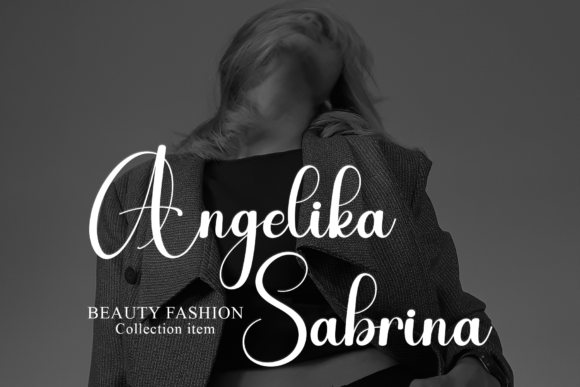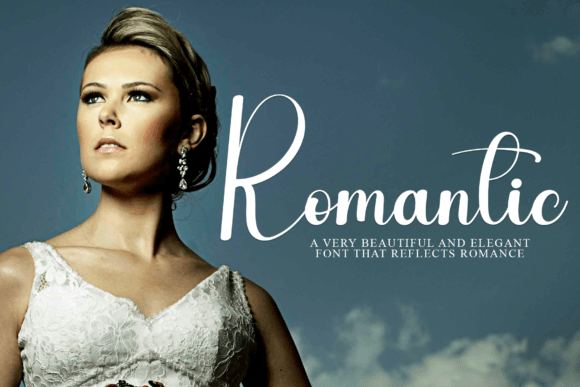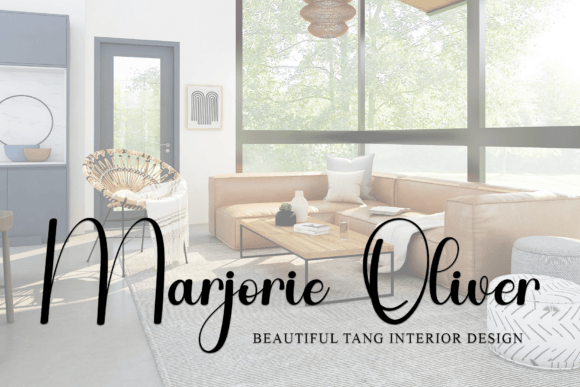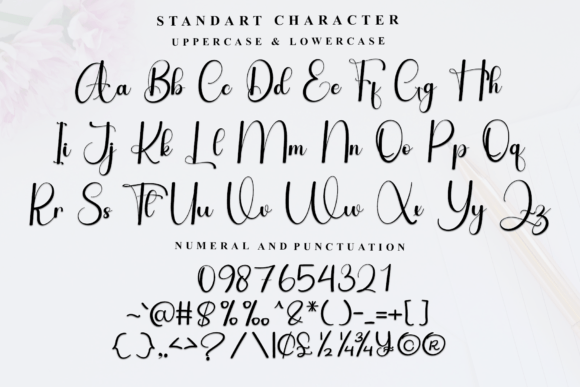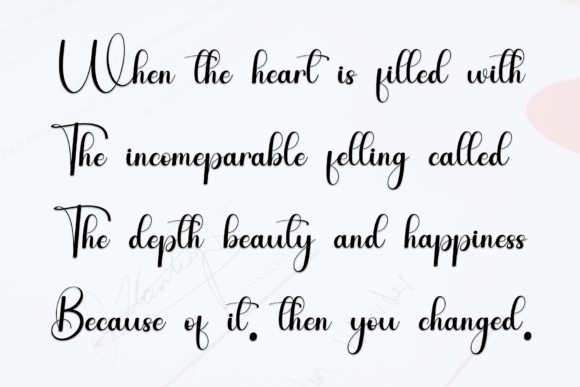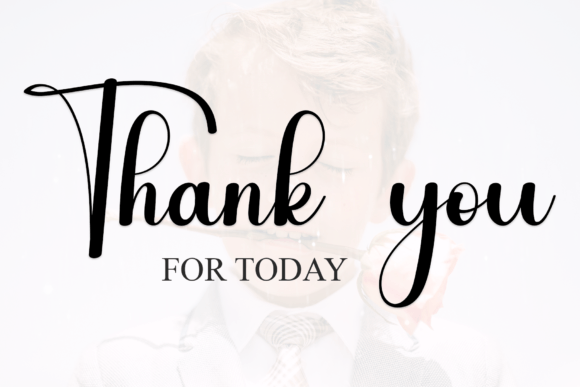
Unlock the Art of Elegant Design with Amazing Calligraphy Font
You know that moment when you’re brainstorming a new project, and suddenly, the perfect font pops into your mind? For designers, this moment is pure magic. It’s the spark that ignites creativity and brings ideas to life. And, for many, that spark comes in the form of the Amazing Calligraphy Font.
This exquisite handwritten font is designed to add a touch of elegance and sophistication to any design. With its delicate, flowing characters and beautiful balance, Amazing Calligraphy Font is the perfect companion for any creative project. Whether you’re crafting a wedding invitation, a logo, or a piece of art, this font will help you achieve a level of refinement and style that’s hard to match.
As a PUA-coded font, Amazing Calligraphy Font offers unparalleled flexibility and ease of use. With access to all the amazing glyphs and ligatures at your fingertips, you’ll be able to create truly unique and captivating designs that leave a lasting impression.
Amazing Calligraphy Font Key Features
- Unique Characteristics: Hand-drawn calligraphy style with subtle brushstrokes, elegant flourishes, and precise letter spacing, creating a sophisticated and luxurious feel.
- Support for Special Characters: Includes a wide range of special characters, including ligatures, swashes, and ornaments, adding an extra layer of creativity and expressiveness.
Designer Review: Amazing Calligraphy Font
Overall, I’d say the Amazing Calligraphy Font is a solid addition to any design project. ✨ It’s got a beautiful, elegant feel that’s perfect for invitations, certificates, or any other application where you want to add a touch of sophistication.
One of the things that really stands out about this font is its versatility. ✨ It comes in a range of styles, from formal to playful, so you can easily find the right look to match your project. The font is also highly customizable, with options for color, size, and spacing, which makes it a great choice for designers who like to get creative.
Of course, no font is perfect, and the Amazing Calligraphy Font has a few limitations. ⚠️ For one thing, it’s not as flexible as some other fonts, which can make it tricky to use in certain situations. Additionally, the font can be a bit on the heavy side, which may not be suitable for projects where you need a lot of text.
- The font’s weight can make it difficult to read in small sizes.
Despite its limitations, I think the Amazing Calligraphy Font is a great choice for designers who want to add a touch of elegance to their projects. With its versatility, customizability, and beautiful design, it’s definitely worth checking out.
The Amazing Calligraphy Font is ideal for:
- Special occasion cards and gifts
- Brand logos and marketing materials
- Handwritten-style quotes and phrases